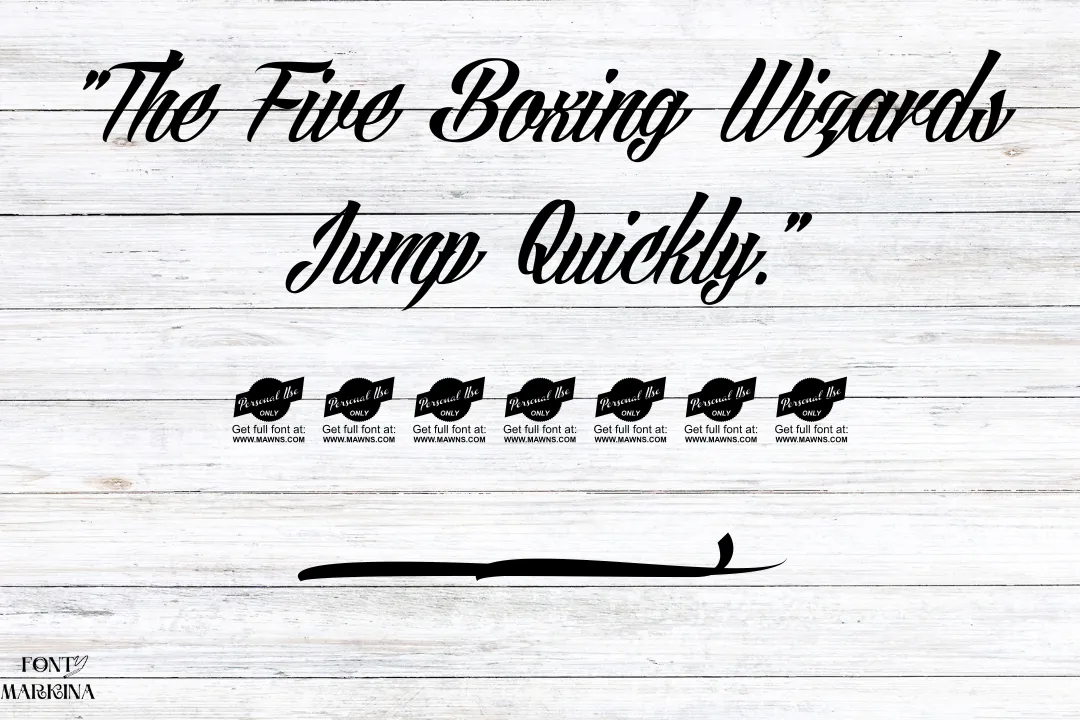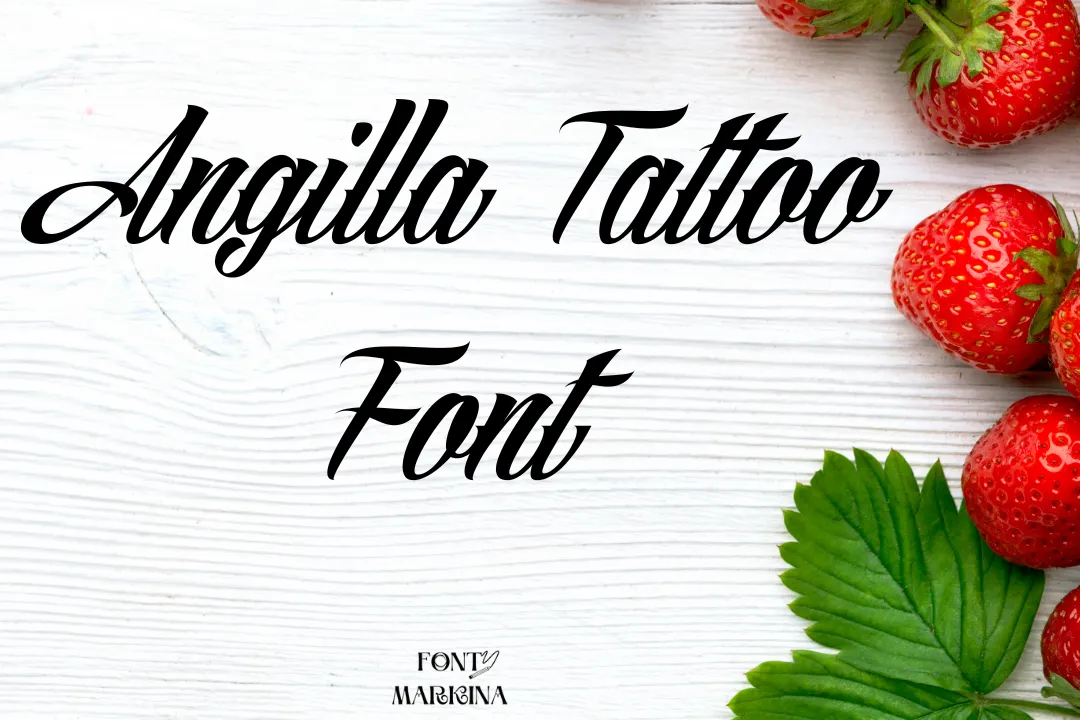
In this article, we discuss on a classic texture known under the name Angilla Tattoo Font. This beautiful texture is a group member of the script typeface family. It comes with a spotless texture and supports a bunch of international languages.
This family is known for its advanced copy and paste function. Because of more than 200 special glyphs and ligatures, this wonderful texture become popular across the globe.
Uses of Angilla Tattoo Font
Now we come to the use of this family, so it is used for a vast variety of projects according to users’ needs. This texture is specially designed for use in tattoos of various designs. A large number of companies used it for jeans designs, shirt designs, printings, and much more. It is also suited for Adobe and Canva programs.
What type of font is Angilla Tattoo?
It is a modern texture that comes from the script family and was developed by an intelligent designer Mans Greback.